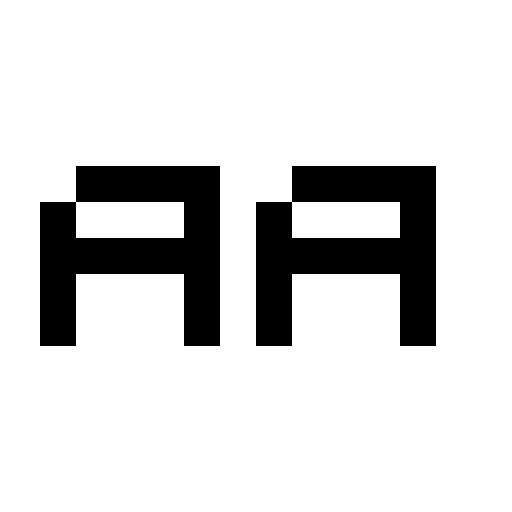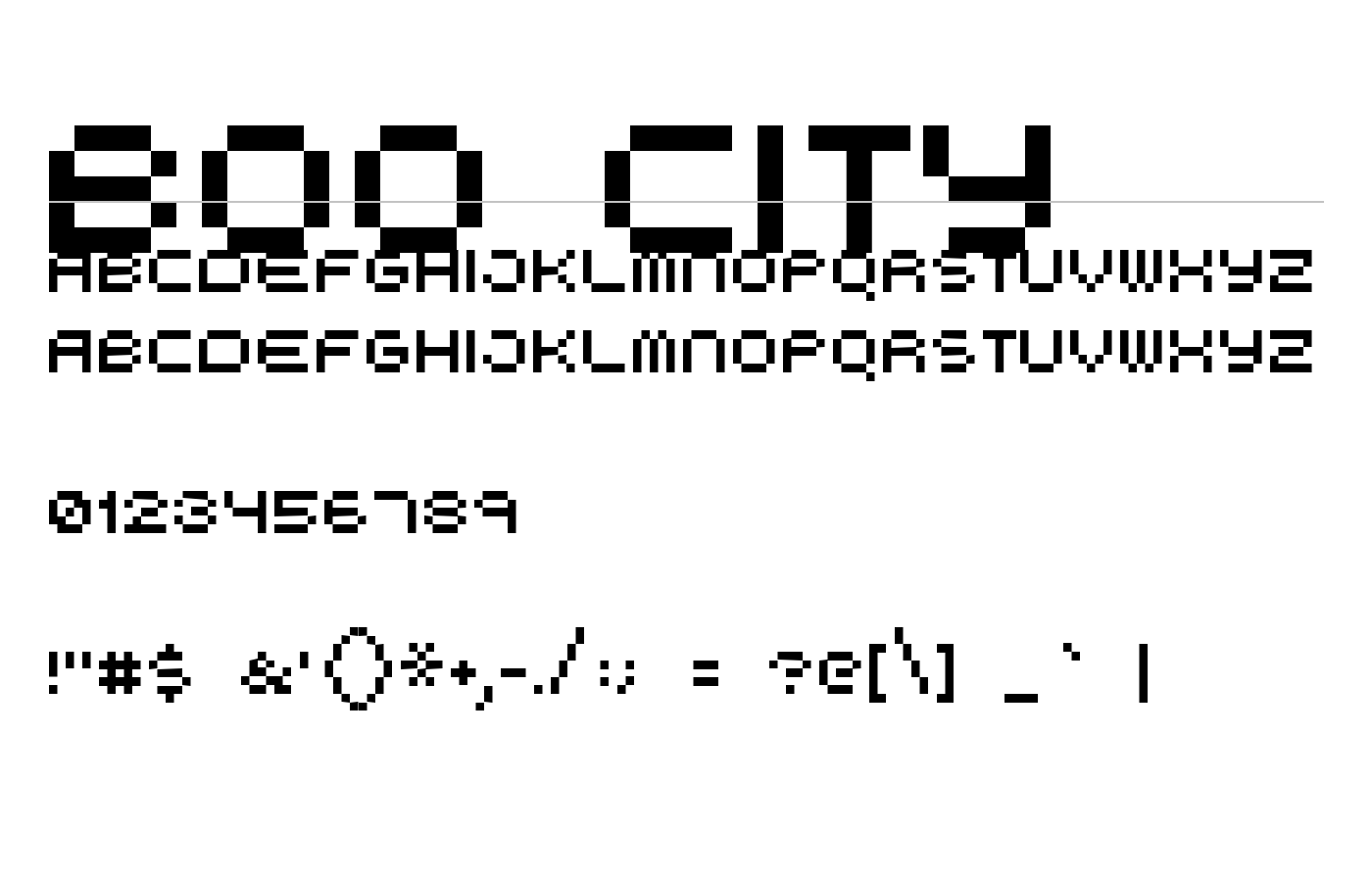
Boo City Font is a pixelated, block-style sans serif typeface that exudes a retro digital vibe with its bold, square-shaped characters and uniform stroke weight. Its condensed width and sharp, geometric edges make it perfect for tech-inspired designs, video game interfaces, or any project seeking a nostalgic, futuristic look. Ideal for headlines, logos, and digital displays, Boo City stands out with its clear, edgy personality while maintaining strong readability.
Boo City Font
About Boo City Font